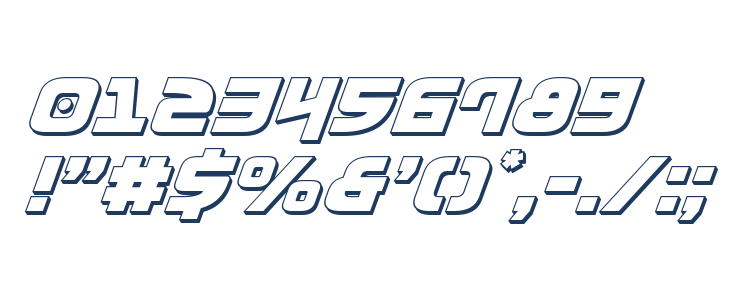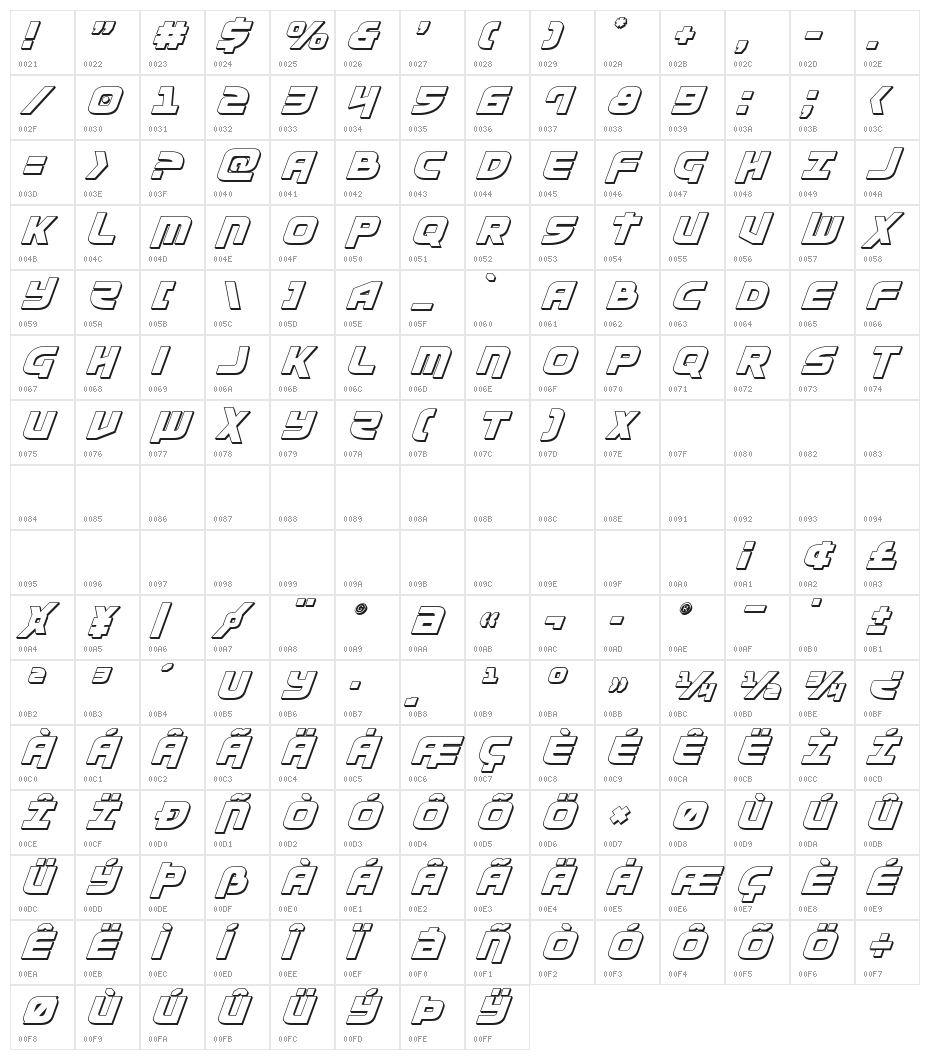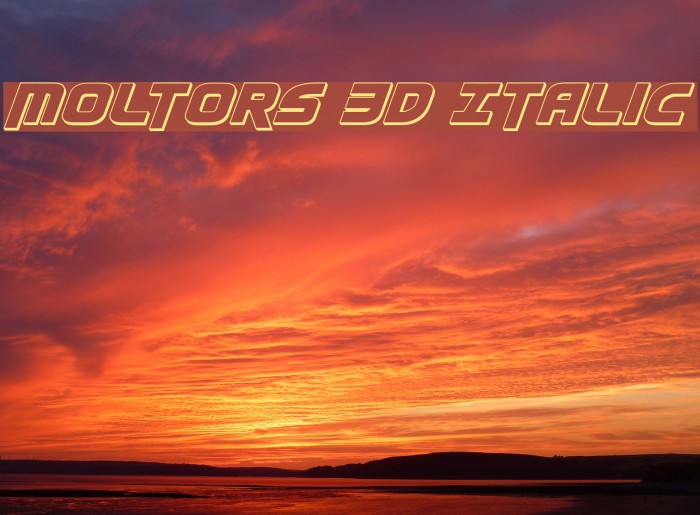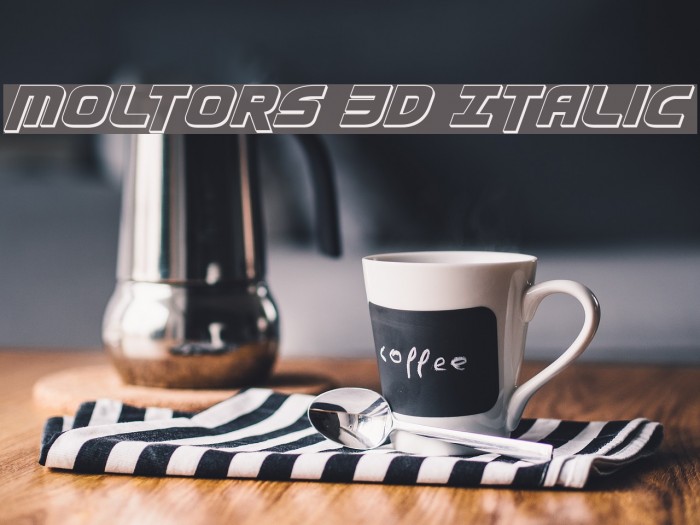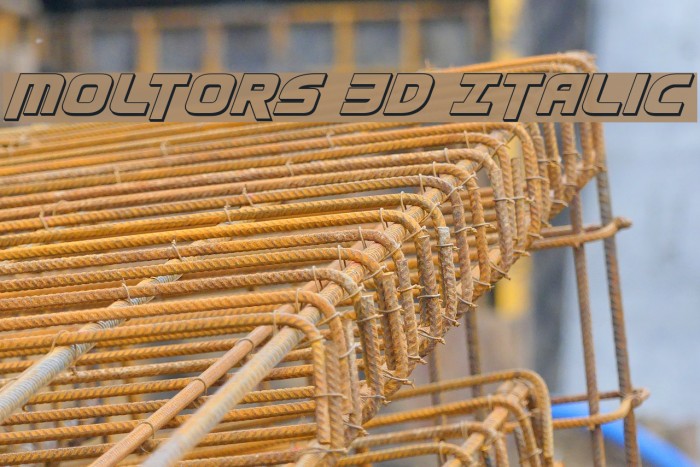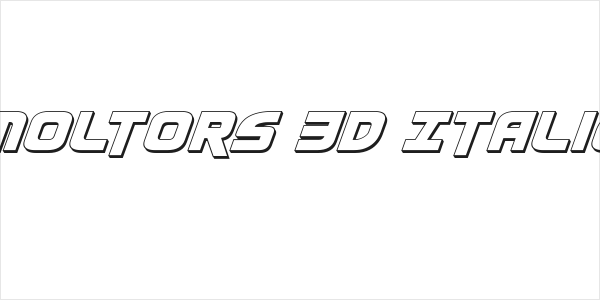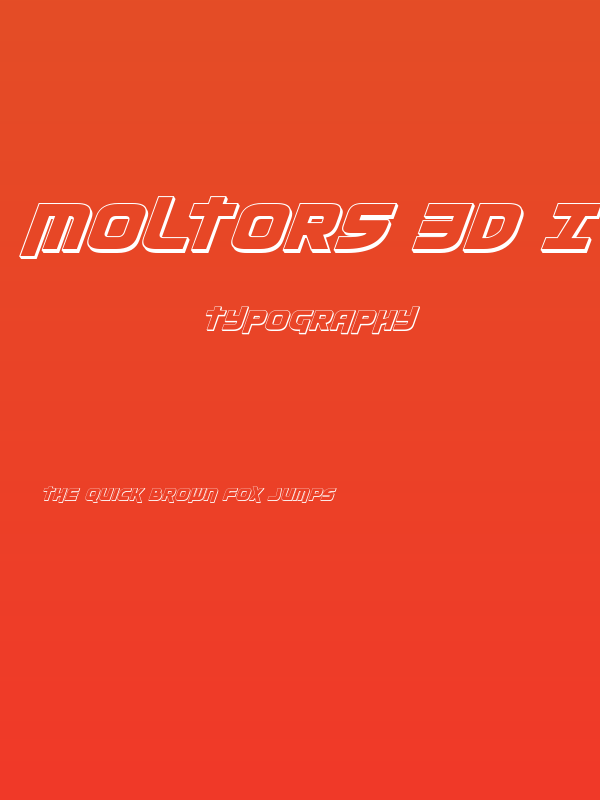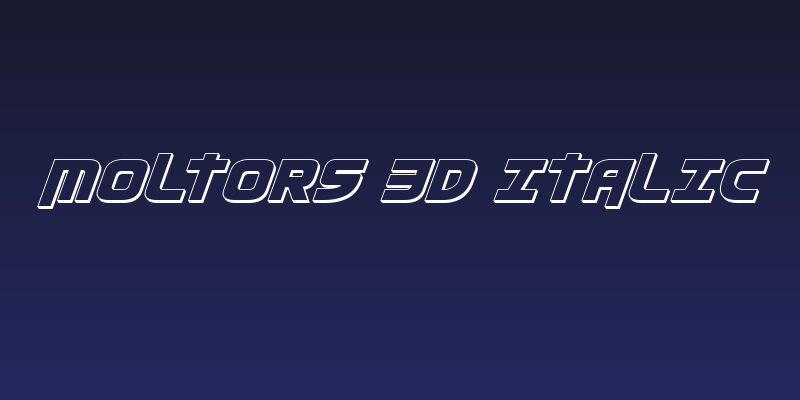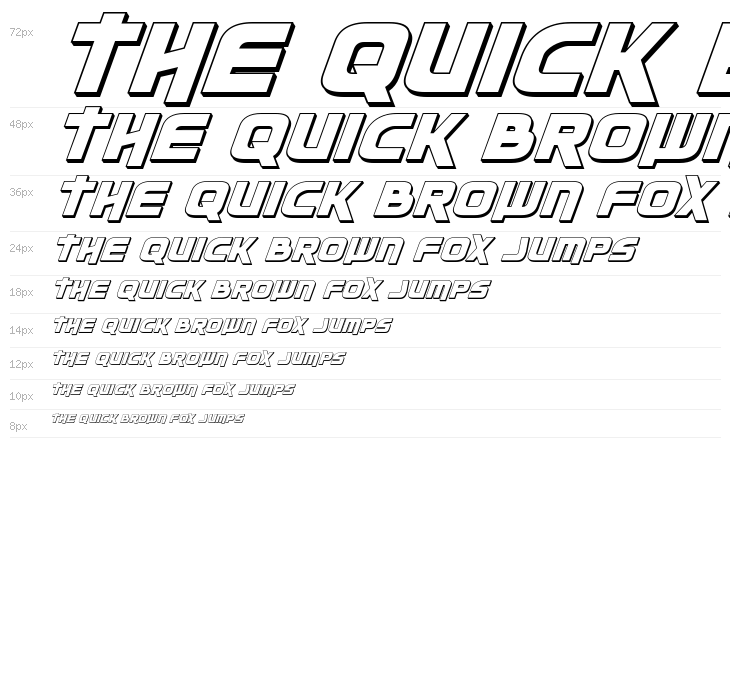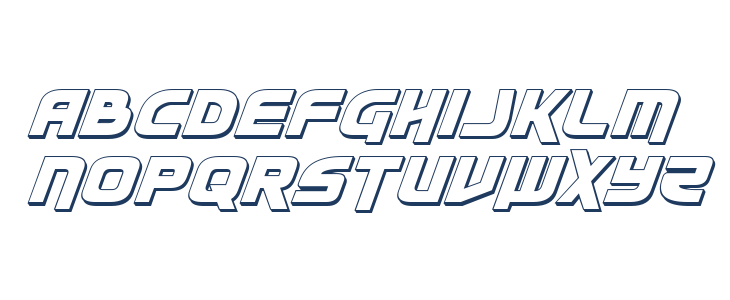
Moltors 3D Italic Font
Moltors 3D Italic Description
This font features a bold, three-dimensional design with italicized characters that create a dynamic and futuristic appearance. The letters are outlined, giving them a distinct, shadowed effect that enhances their 3D look. The uppercase and lowercase letters maintain a consistent style, with angular edges and a slightly condensed form. The numbers and special characters follow the same design principles, ensuring uniformity across all glyphs. This font is ideal for projects that require a modern and eye-catching typeface.
Proposed ProjectsIdeal for video game titles, tech branding, futuristic posters, and digital media.